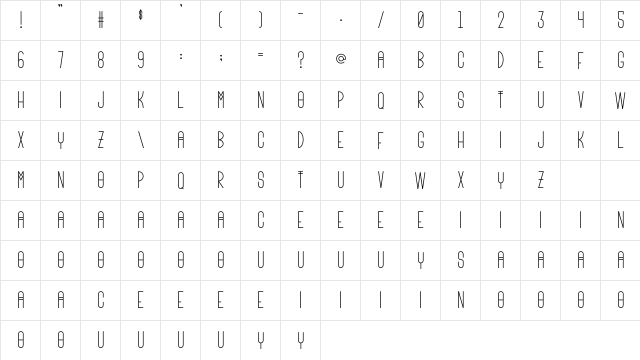
Minta Regular
| Designer | Avery Brown |
Design Context for Minta Typeface
Minta is a composed and adaptable typeface that performs quietly and consistently across a wide range of design contexts.